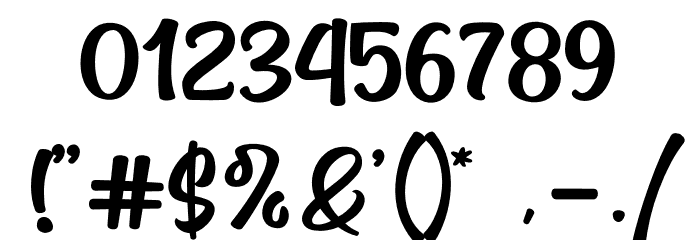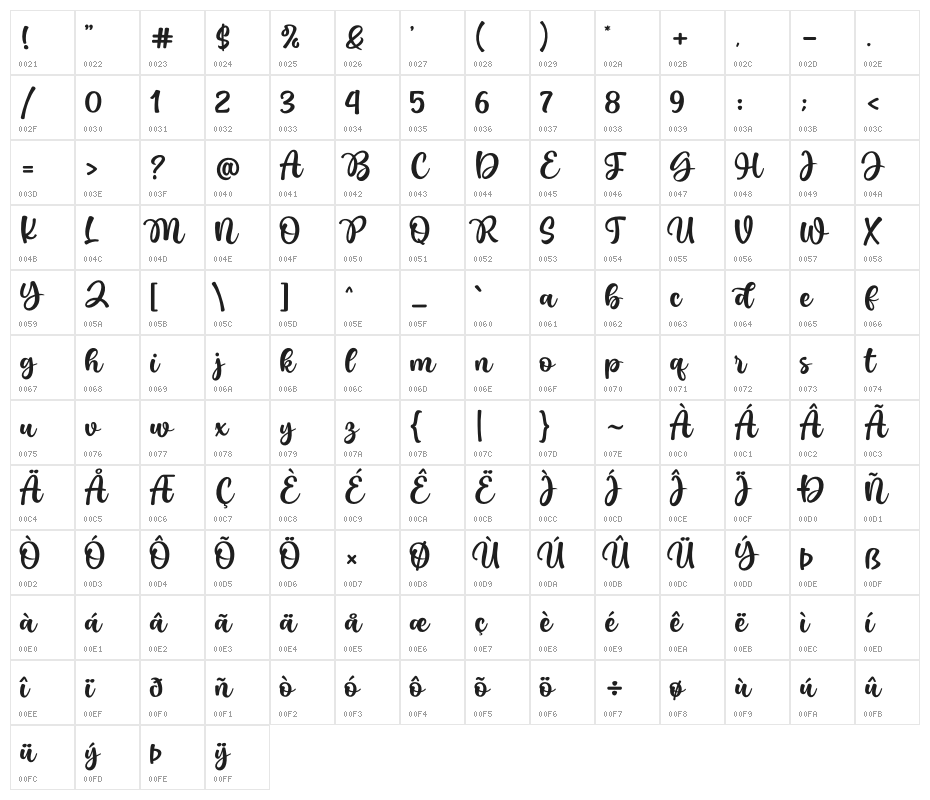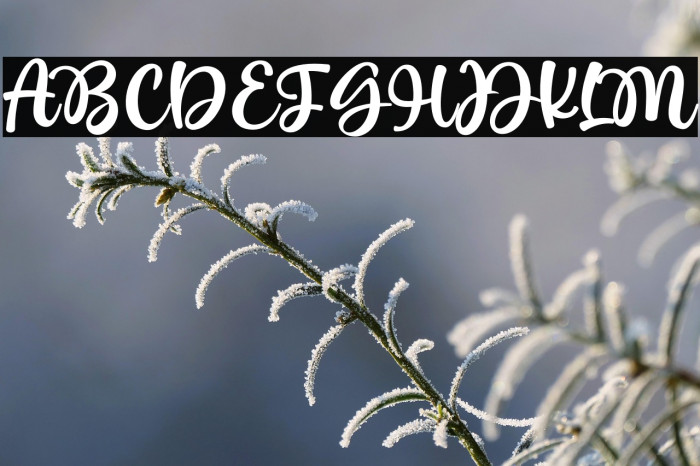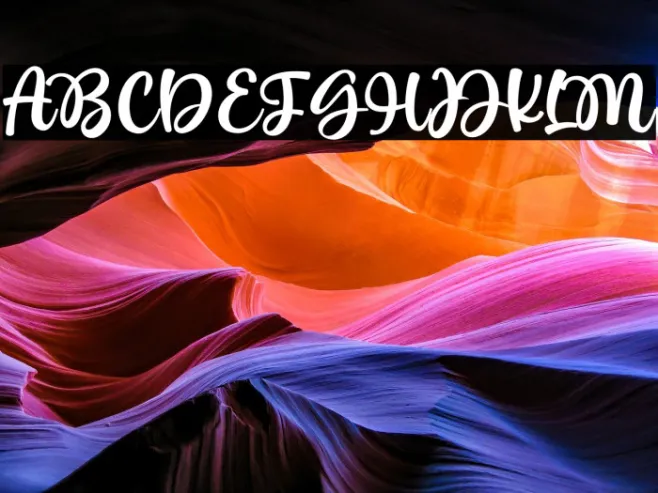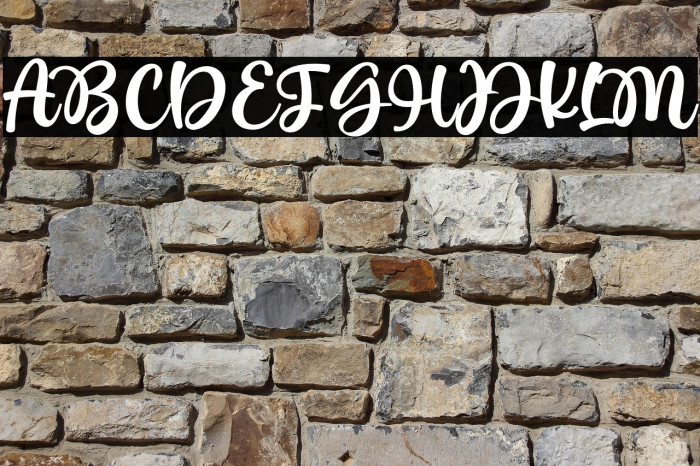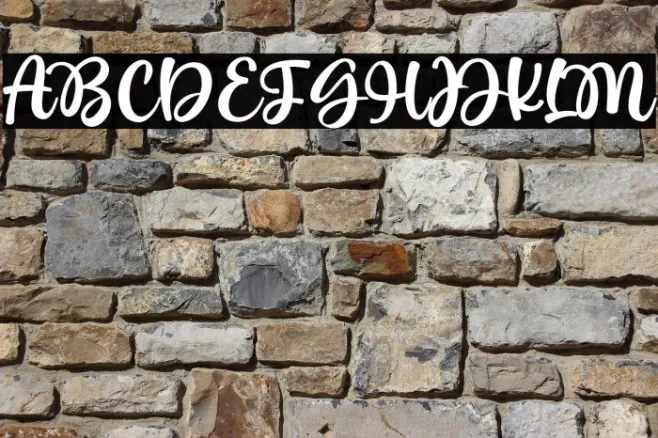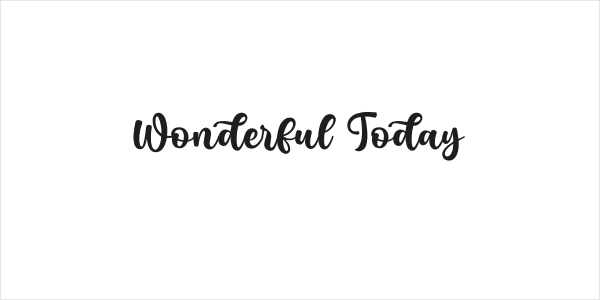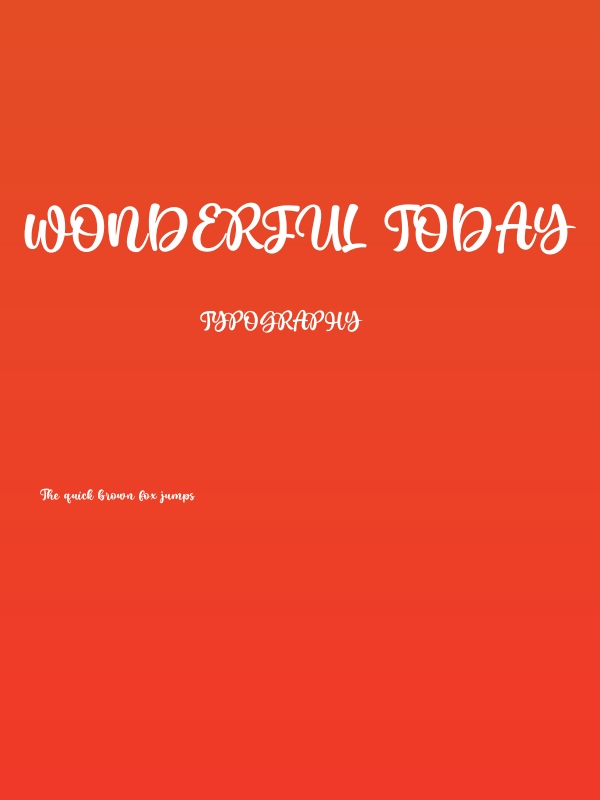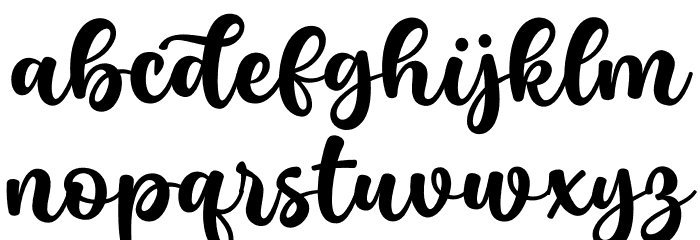
Wonderful Today Font
Wonderful Today Description
This font features a flowing, cursive style with a playful and elegant appearance. The letters are interconnected, giving a sense of continuity and fluidity. The uppercase letters are bold and prominent, while the lowercase letters maintain a consistent style with slightly more subtlety. The numbers are clear and legible, matching the overall aesthetic of the alphabet. Special characters are designed with the same attention to detail, ensuring they blend seamlessly with the letters and numbers. The font's overall look is both modern and timeless, making it versatile for various design needs.
| Use Case | Logos, Invitations, Headlines |
| Proposed Projects | Ideal for wedding invitations, greeting cards, branding projects, and social media graphics. |